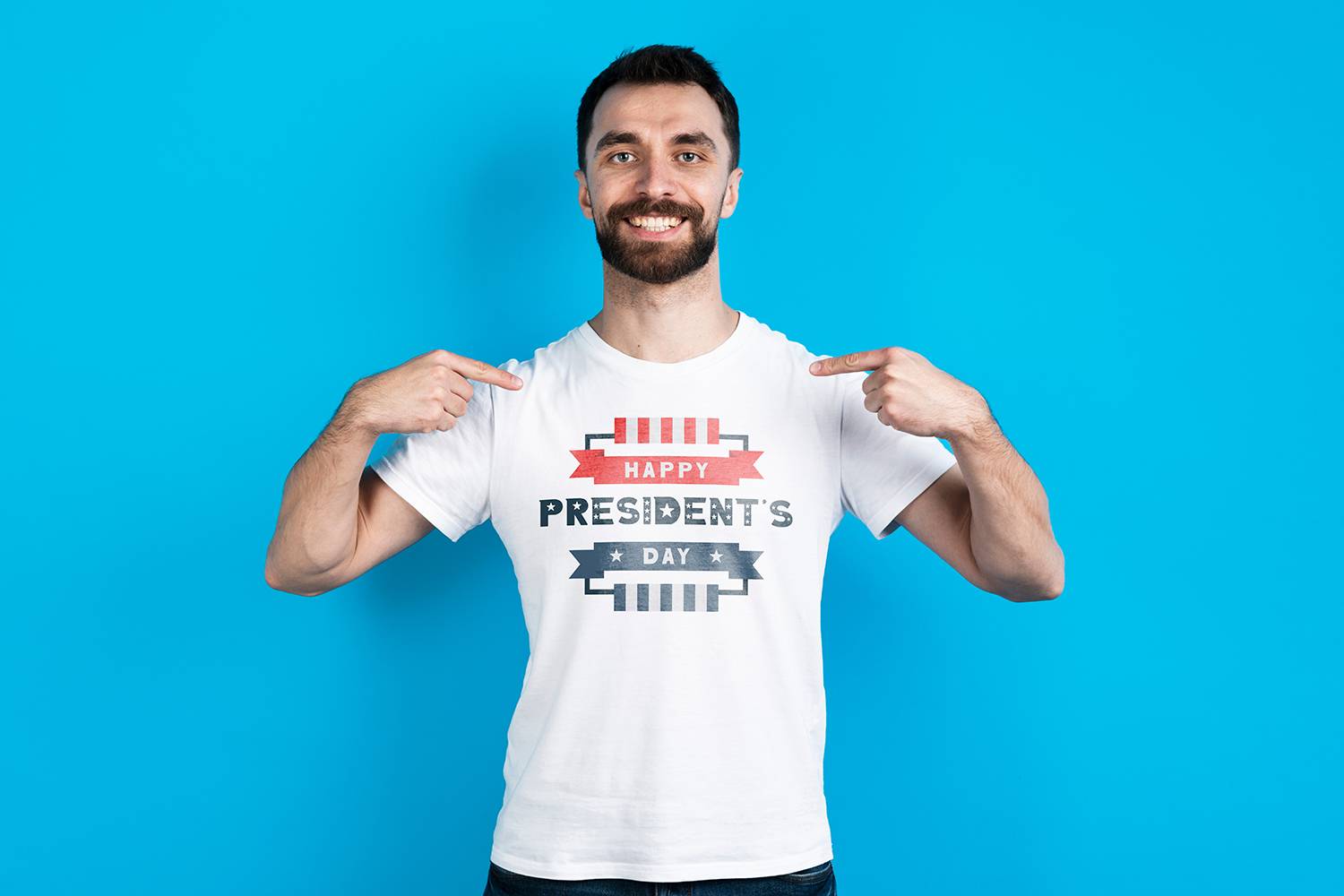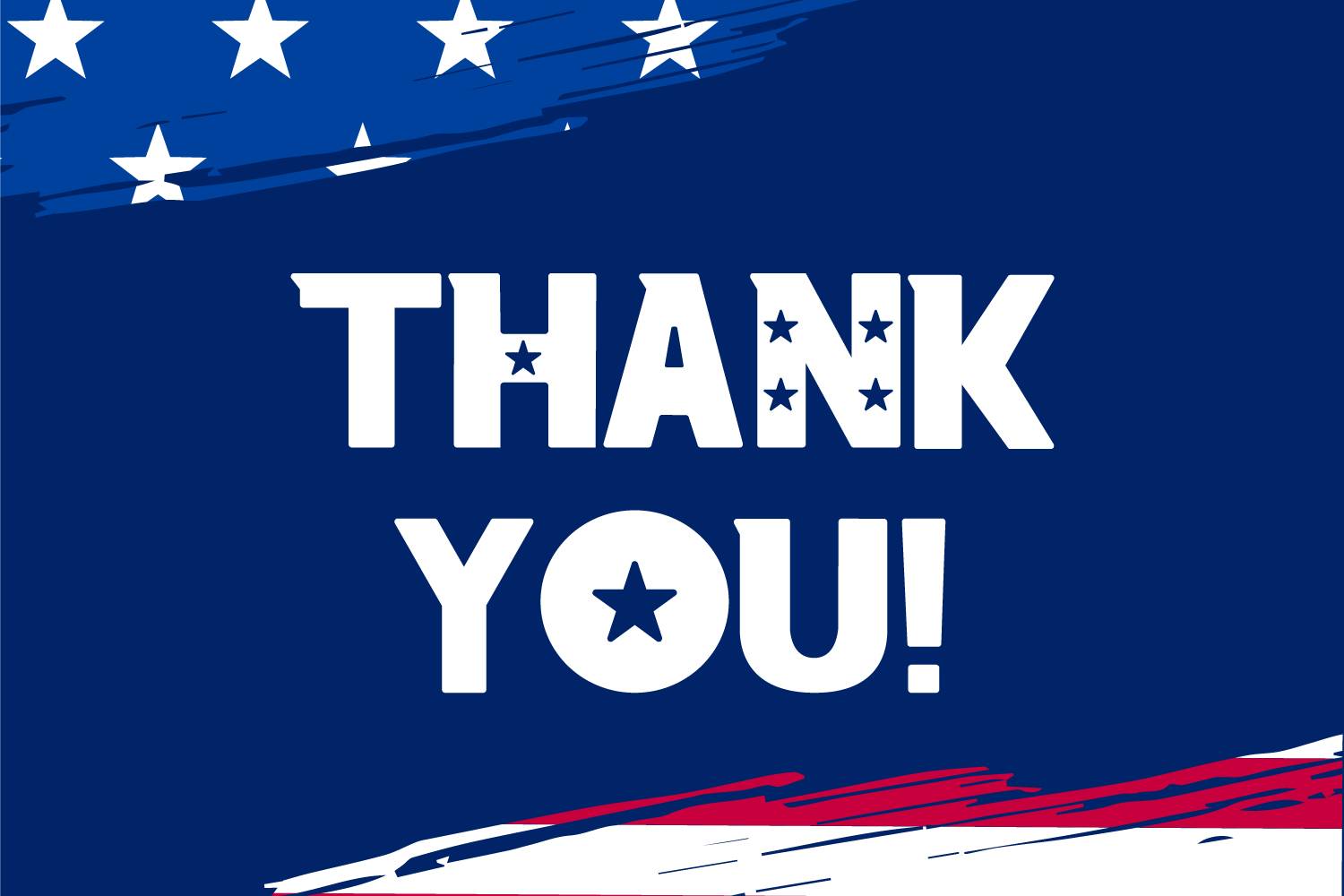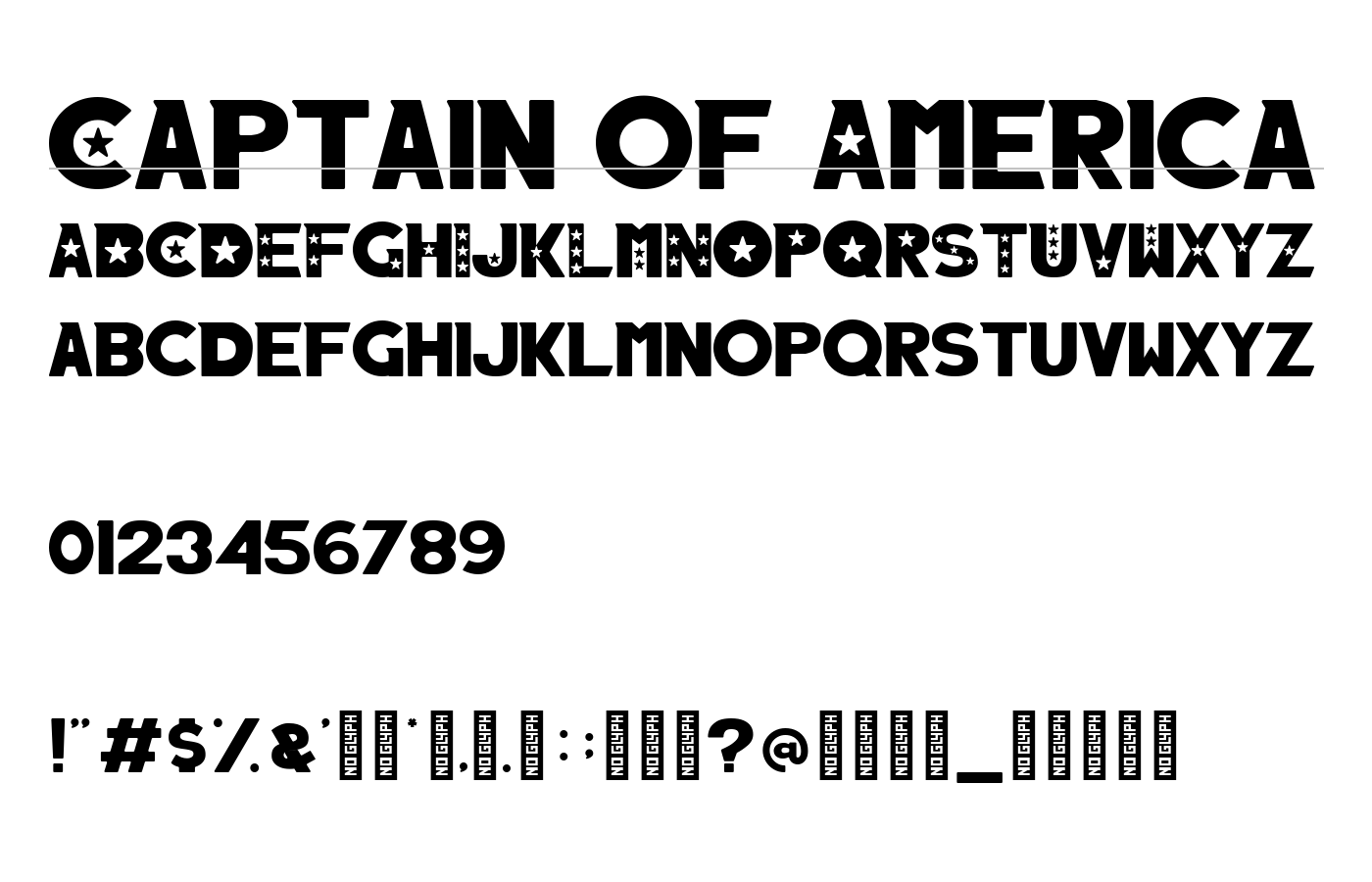
Captain of America is a bold, all-caps sans serif font with a strong, heroic feel, featuring chunky letterforms and decorative star motifs within many characters. Its heavy weight, wide proportions, and playful star details make it ideal for impactful headlines, branding, or designs that seek a patriotic, adventurous, or vintage comic-inspired vibe. This font works best where a bold statement is needed, such as posters, logos, or packaging that want to convey strength and excitement.
Captain of America Font
About Captain of America Font
| Font family | Captain of America Font |
| Designer | Heloyud |